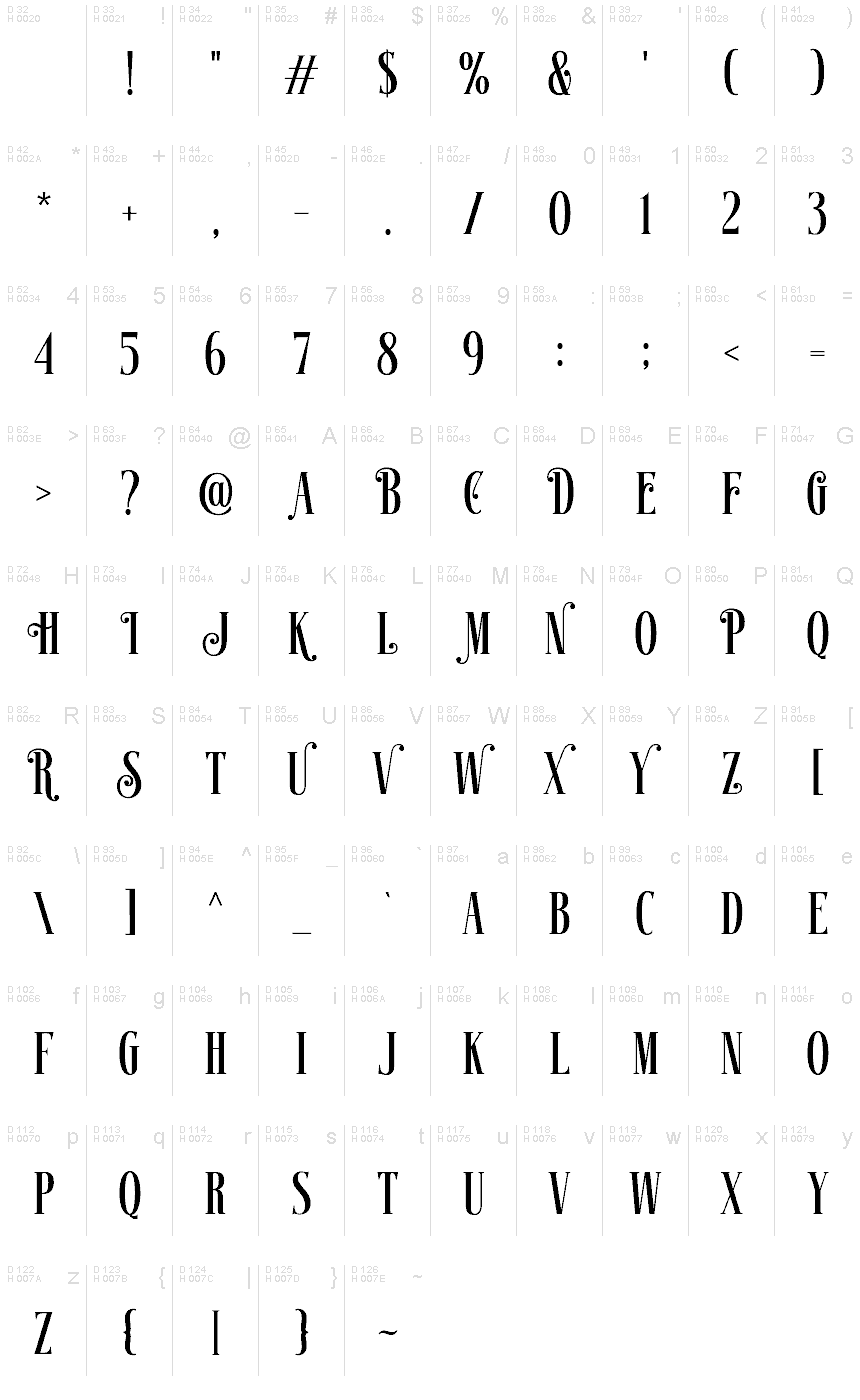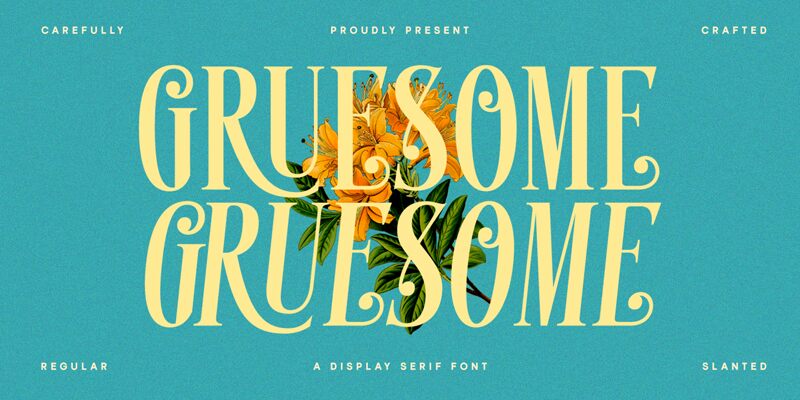
GruesomeDemo
Gruesome is the perfect choice if you want to add a little bit of a retro punch to your design project, or if you are a horror film enthusiast looking for a font to be used in the poster for your next project.
Gruesome is a condensed display font with a bold classic look. It’s perfect for headlines and quotes in poster or magazine design, or it can be combined with a cleaner, lighter font for a stunning combination.